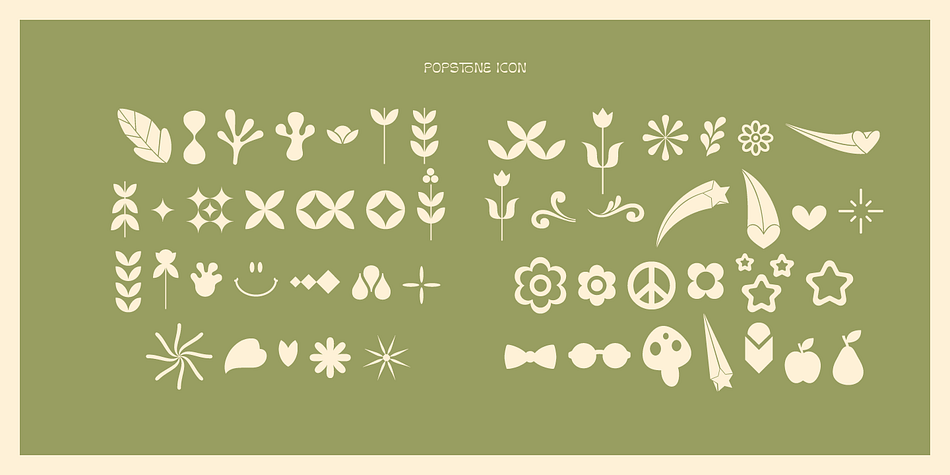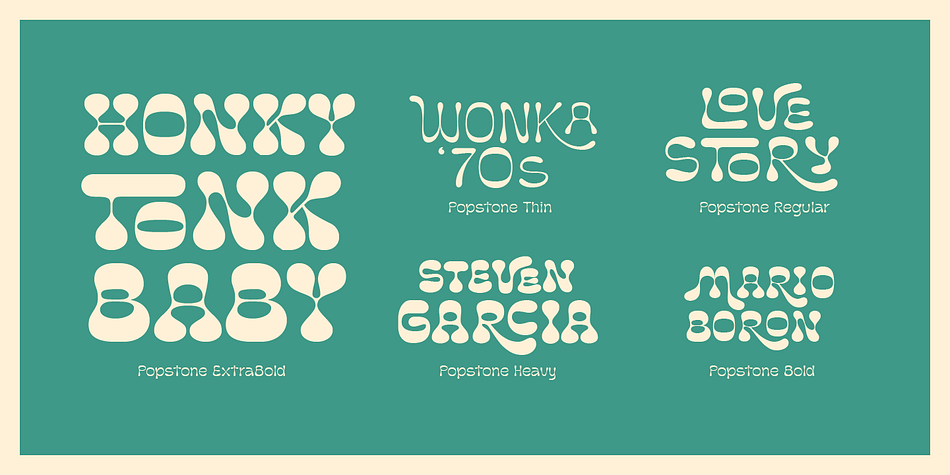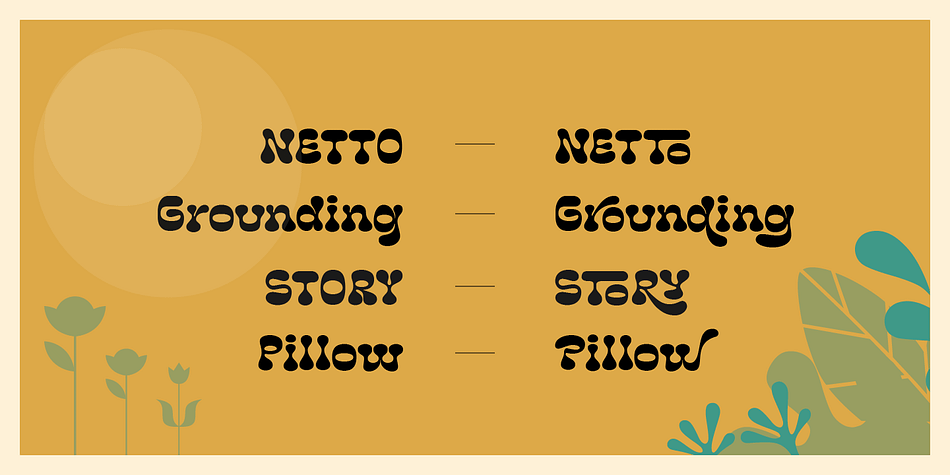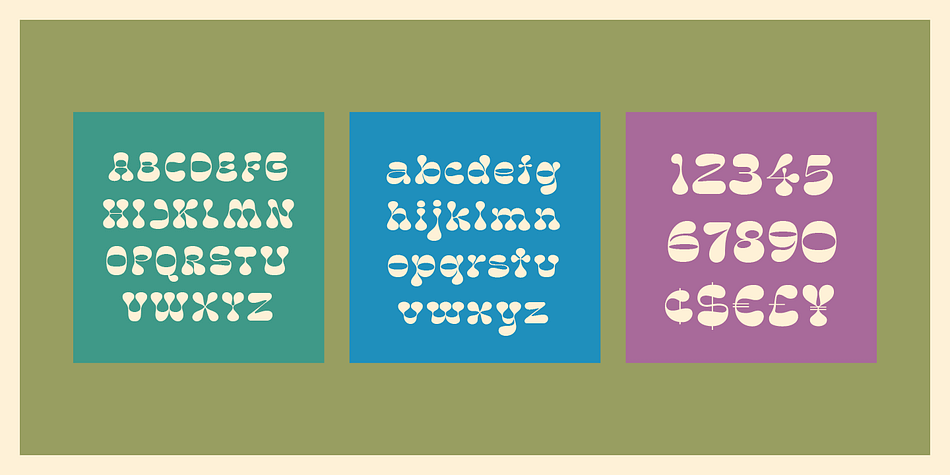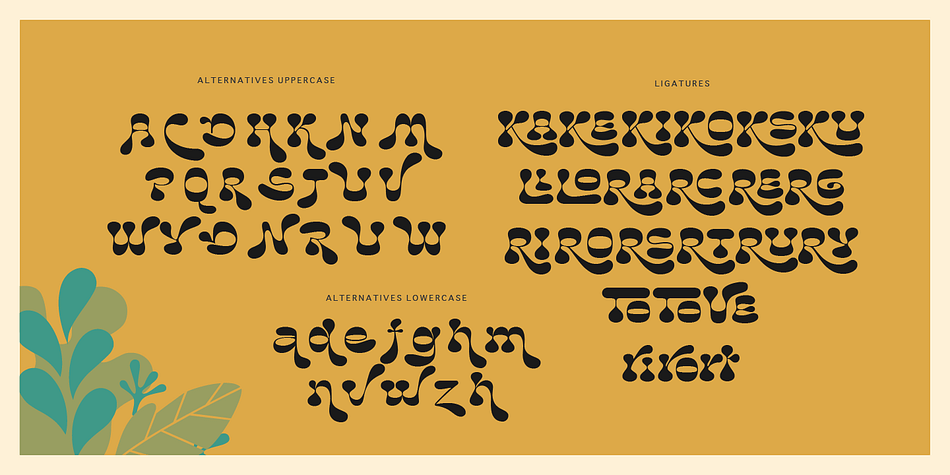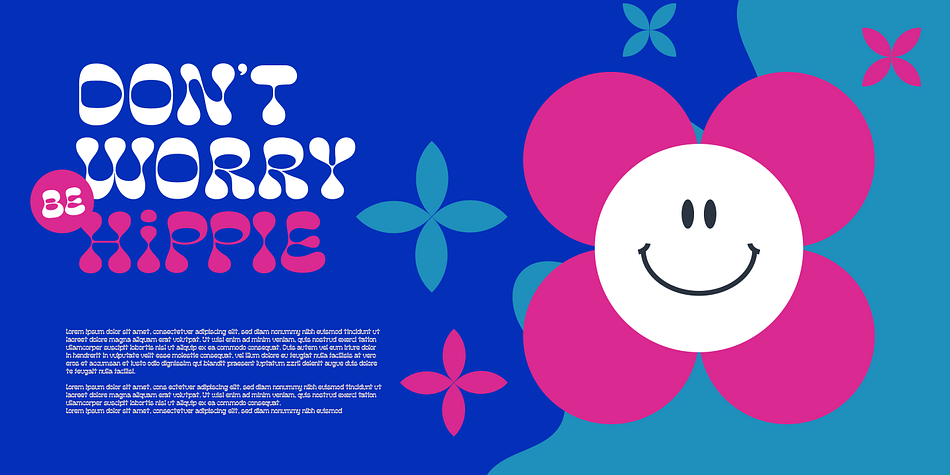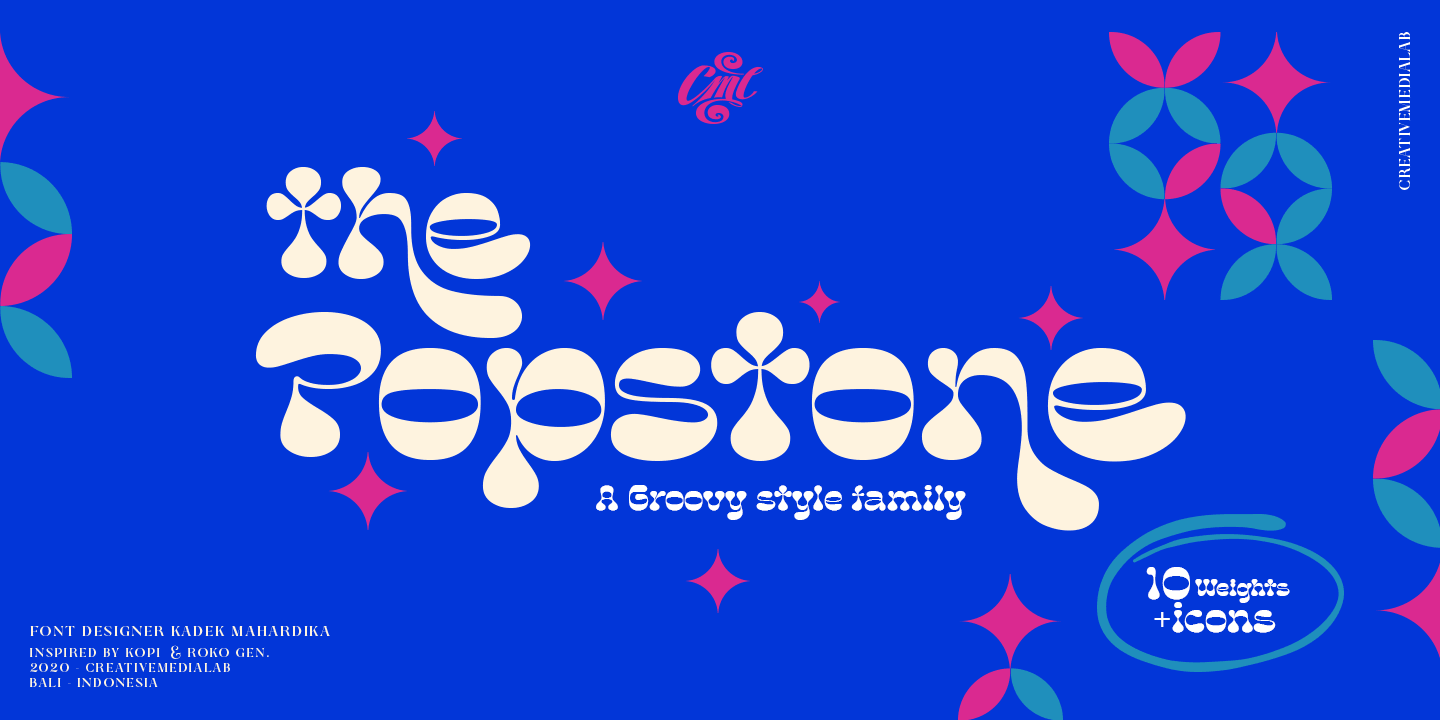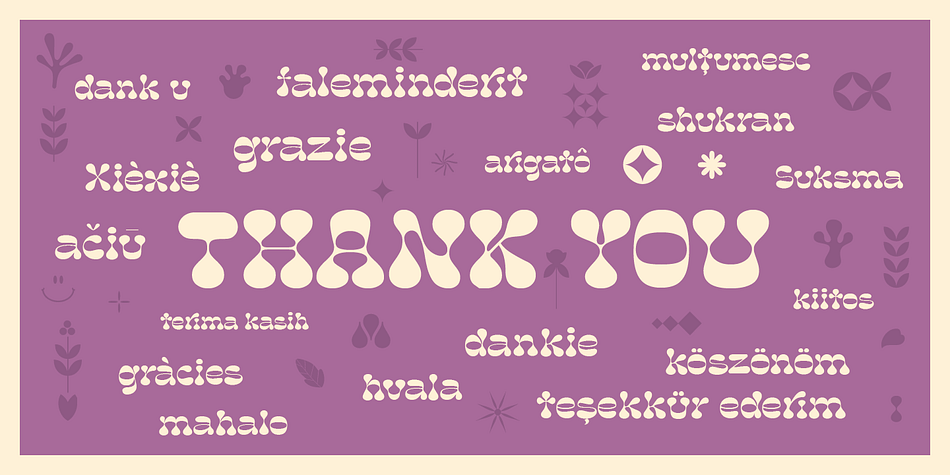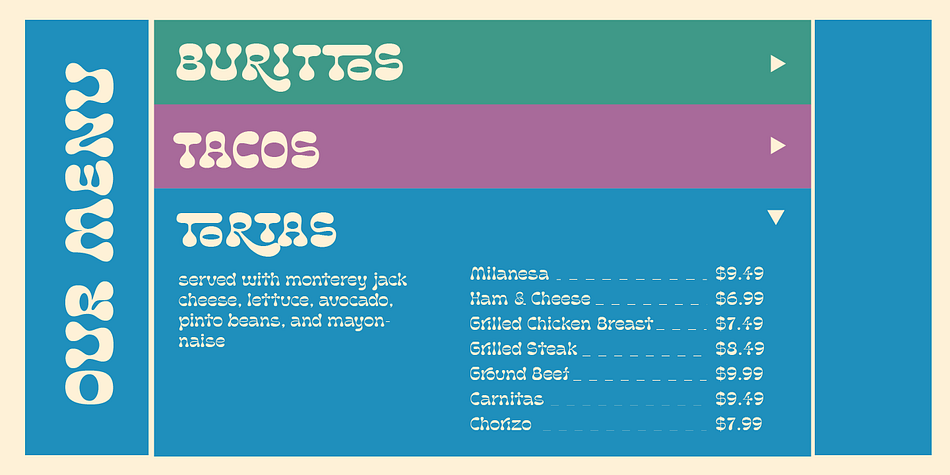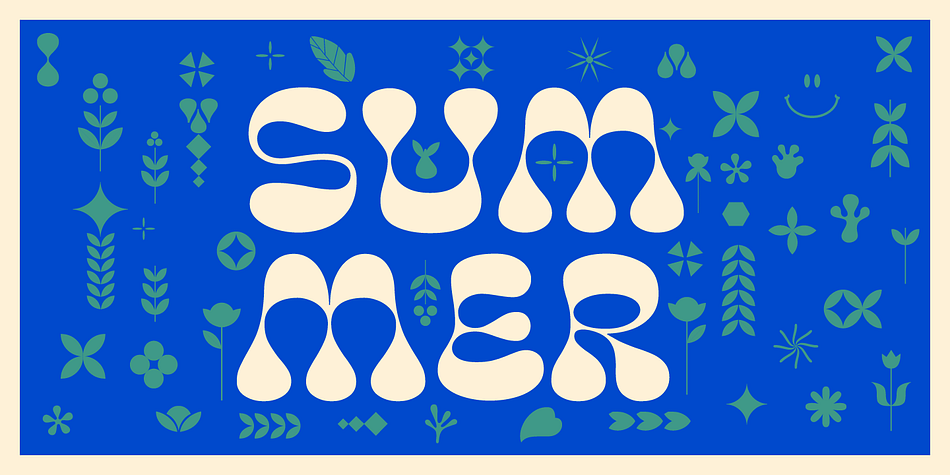
Popstone is a multiple classification font family. This typeface has twelve styles and was published by Creative Media Lab.
Groovy style font becomes one of the most popular fonts these days, many designers use it to create a fun and happy themes design projects.
Popstone is one of a unique font from our collection, it look bubbly and funky. Contains 10 weights from thin to black, including variable format It also has alternatives and a lot of fun ligatures to play with.
Popstone is a fun, funky, and versatile font family, you can use it for poster, logo, retro or vintage theme, DIY projects, baby, 70s, 80s style, and much more.